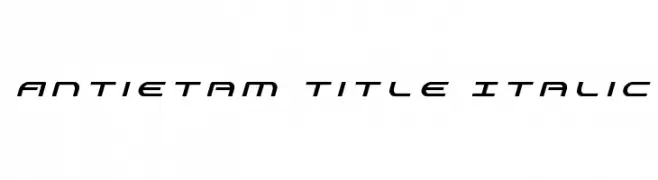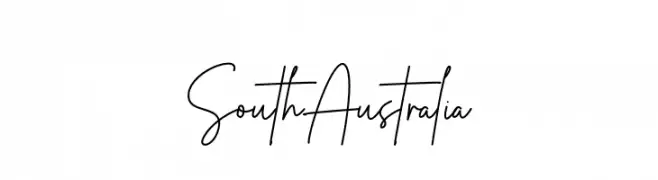
A geometric, blocky font with a retro, digital aesthetic.
A sleek, modern italic font with a dynamic and streamlined appearance.
A whimsical, decorative font with spiral embellishments and high contrast.
A delicate, handwritten font with fluid strokes and elegant design.
A classic serif font with bold, elegant curves and a timeless design.